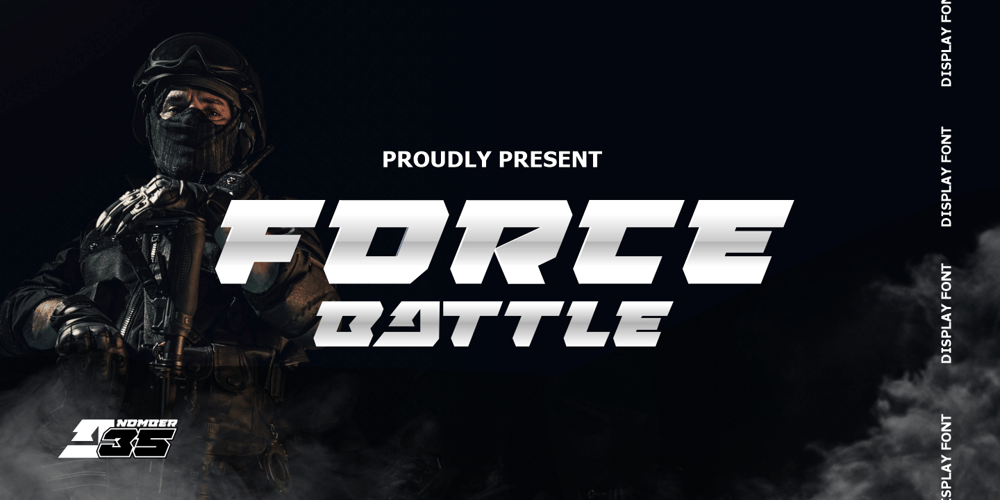
Force Battle Font Family was designed by Joko Setiono and published by Arttype7. Force Battle contains 1 styles and family package options. Very powerful elegant army font. Which we named “Force Battle”.”Force Battle” has a consistent slope so it looks strong.The Force Battle font is inspired by a strong, focused, elegant and alert army.This army font is perfect for movie and game titles, posters, t-shirts, logos and any design that requires a strong army font.